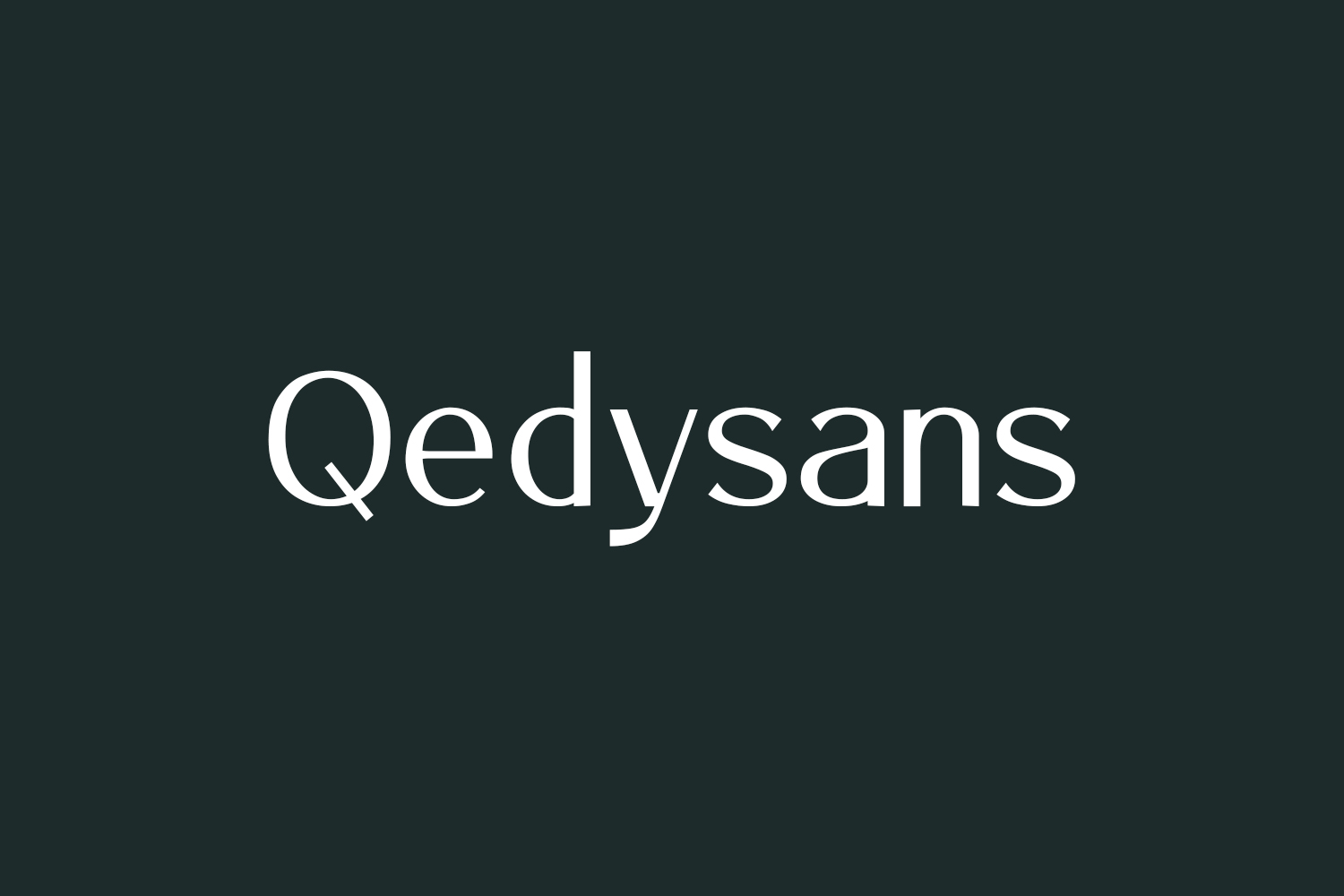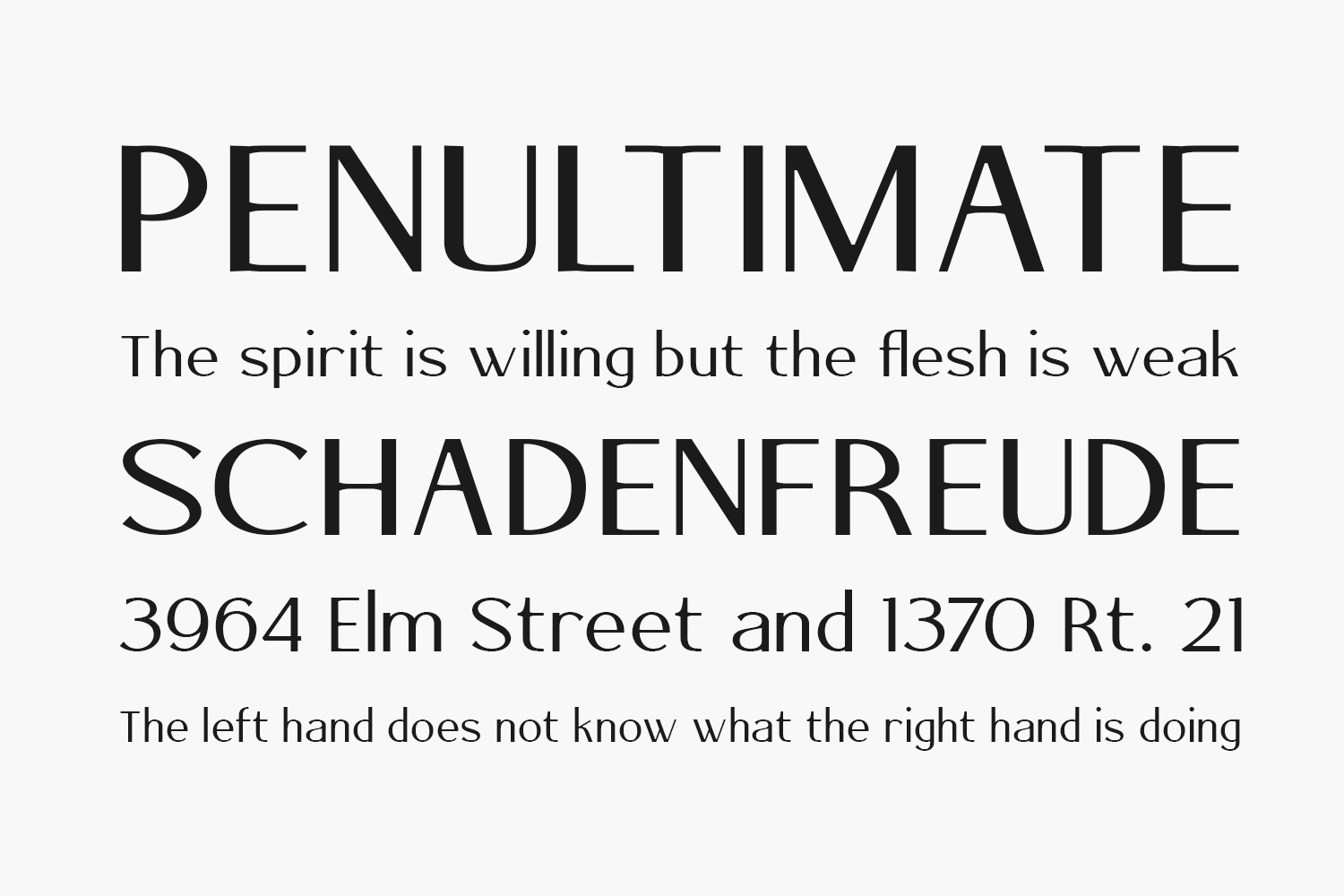
Introducing Qedysans Free Font, a refined sans serif font infused with a touch of romance. Versatile for both body and header text, Qedysans complements design concepts that prioritize elegance, simplicity, minimalism, and romance. Perfect for crafting wedding invitations, shop signs, logotypes, Instagram promotions, and more, Qedysans adds a sophisticated charm to any project. Download the font for free if you need it for personal use or purchase the full version for commercial use.